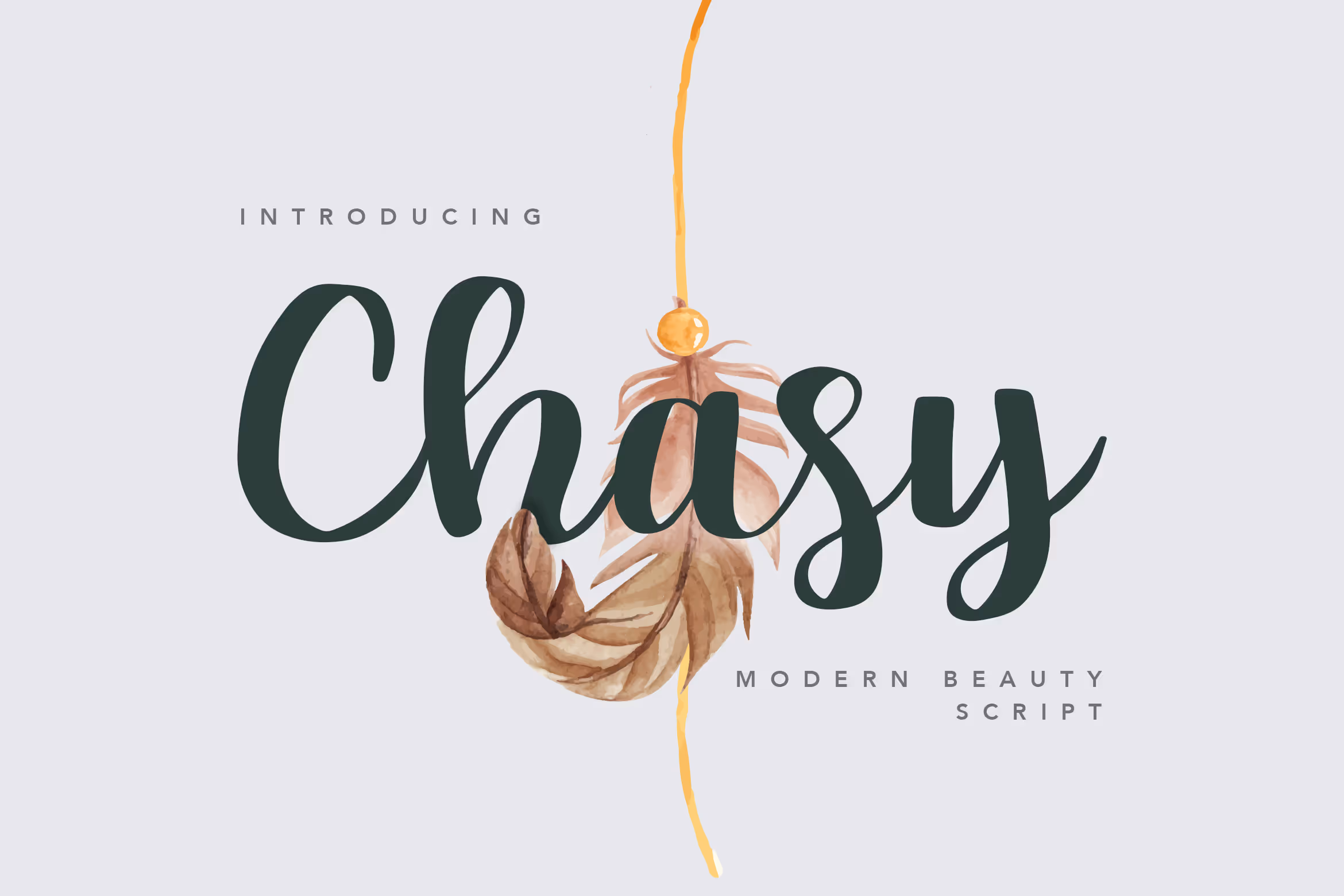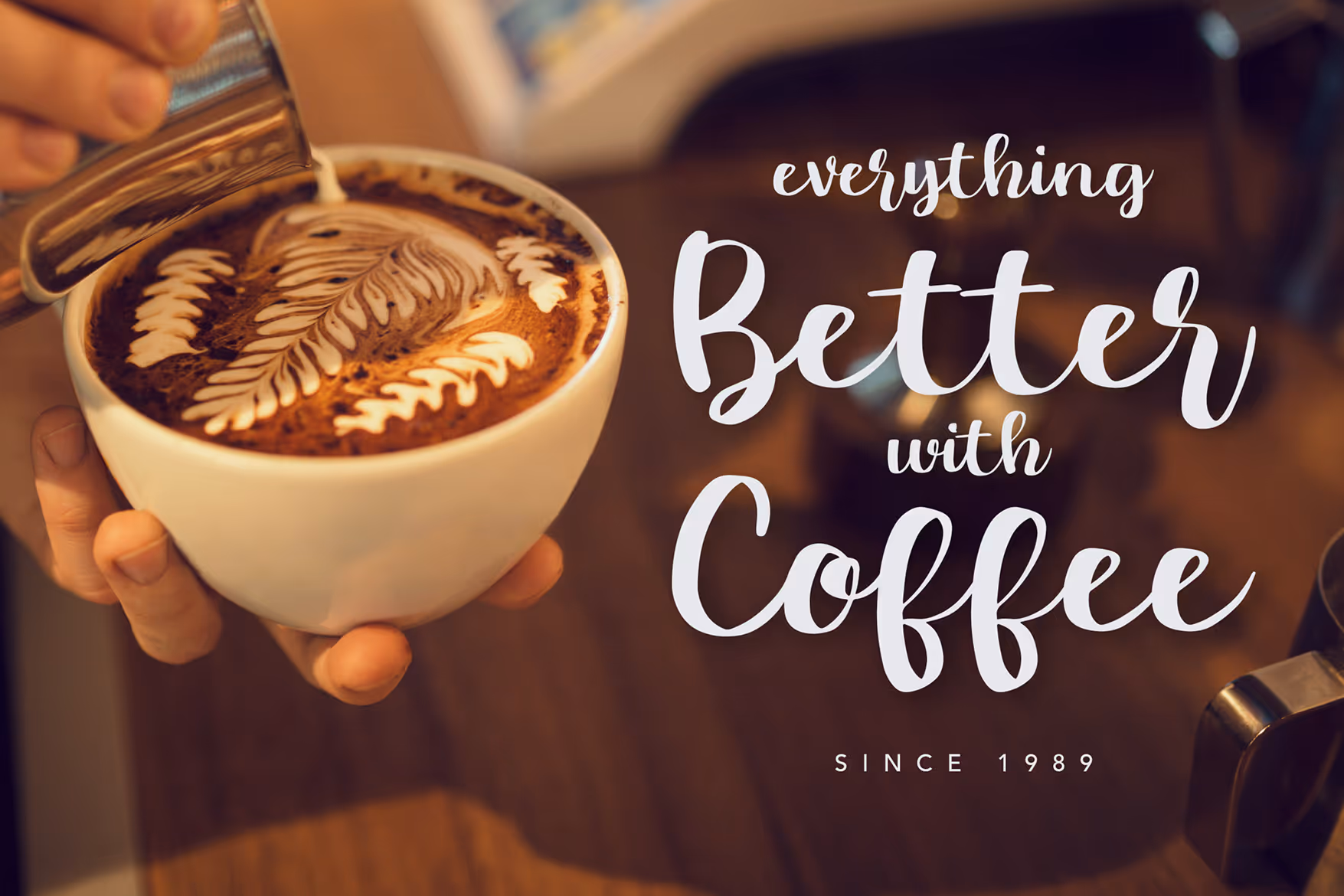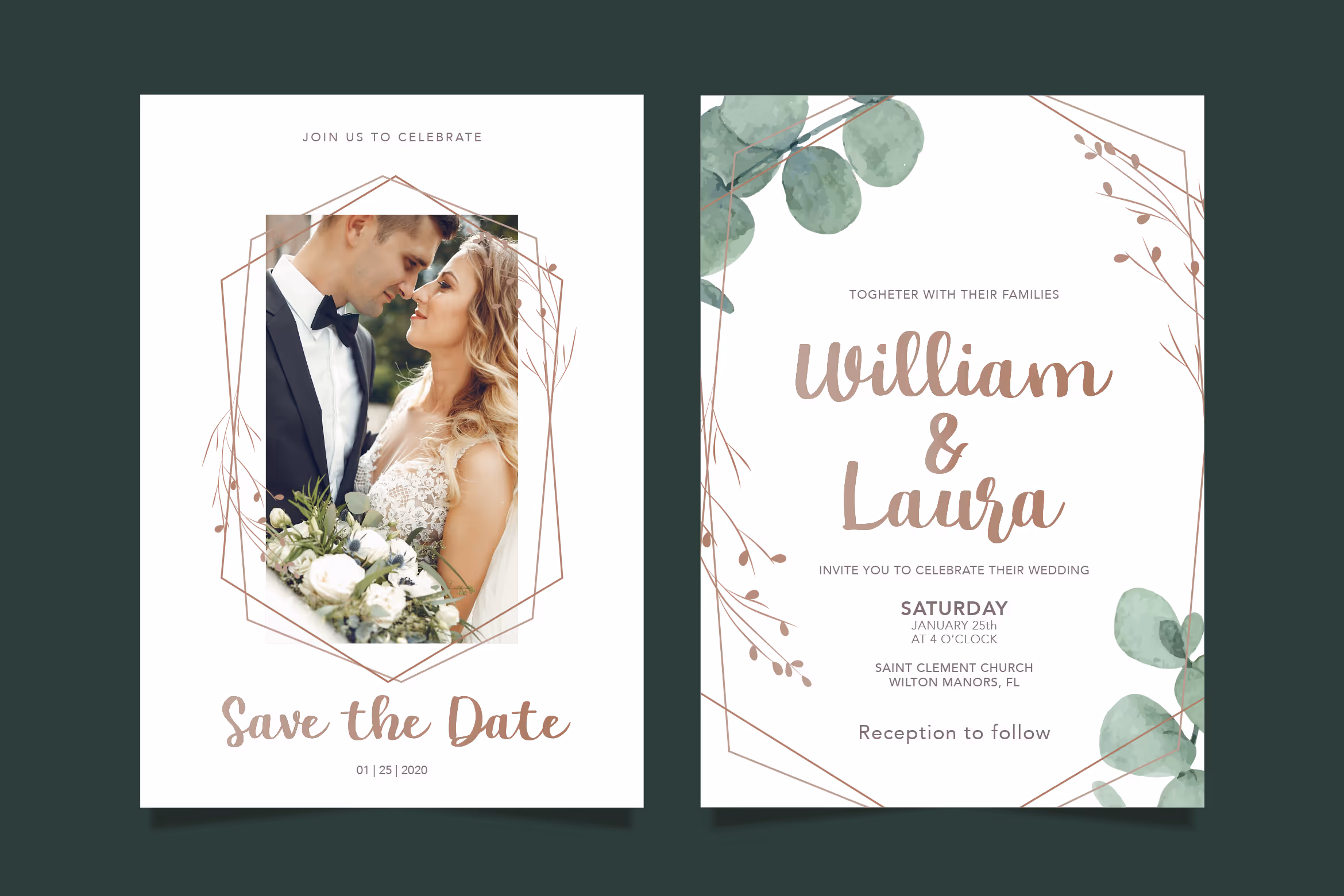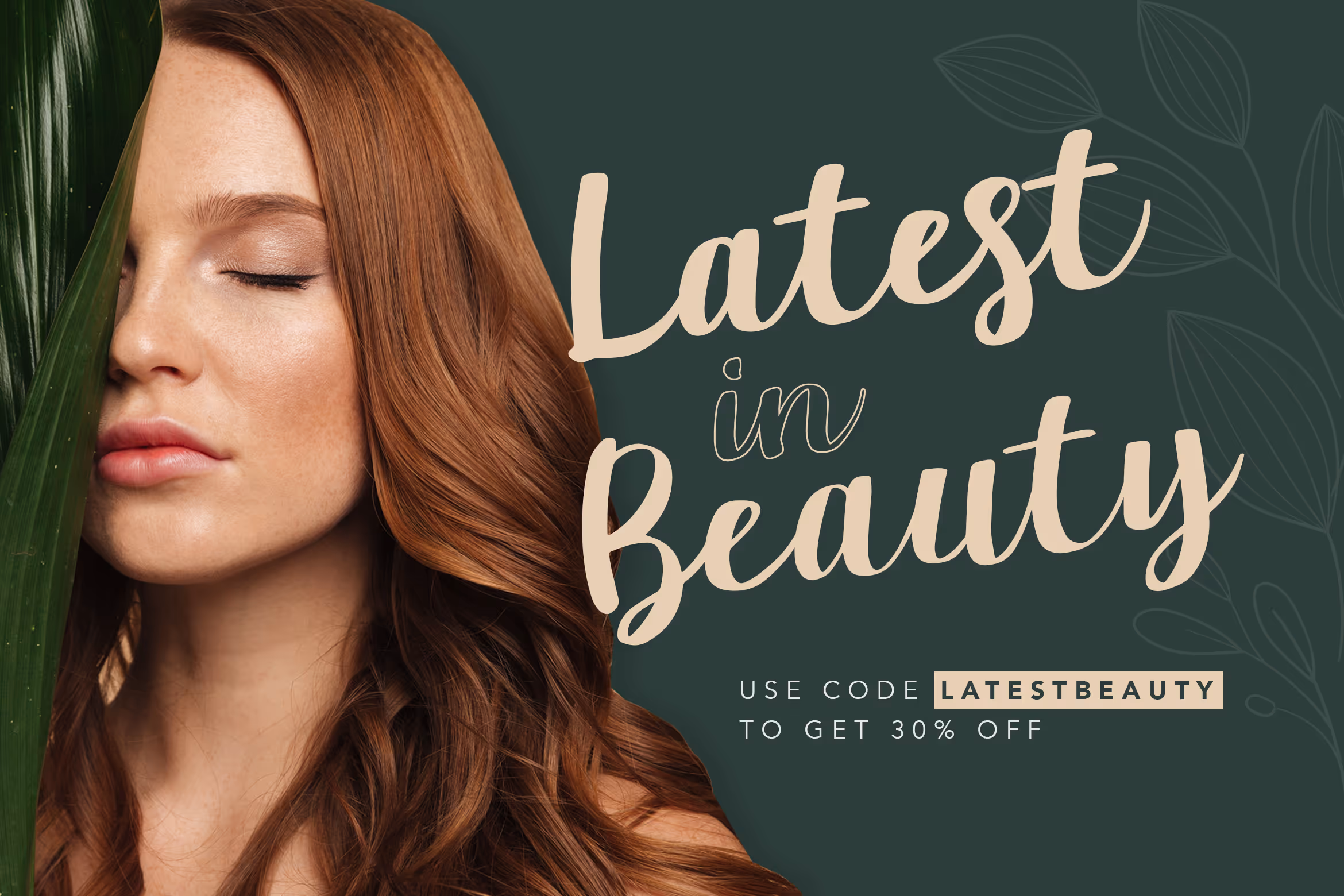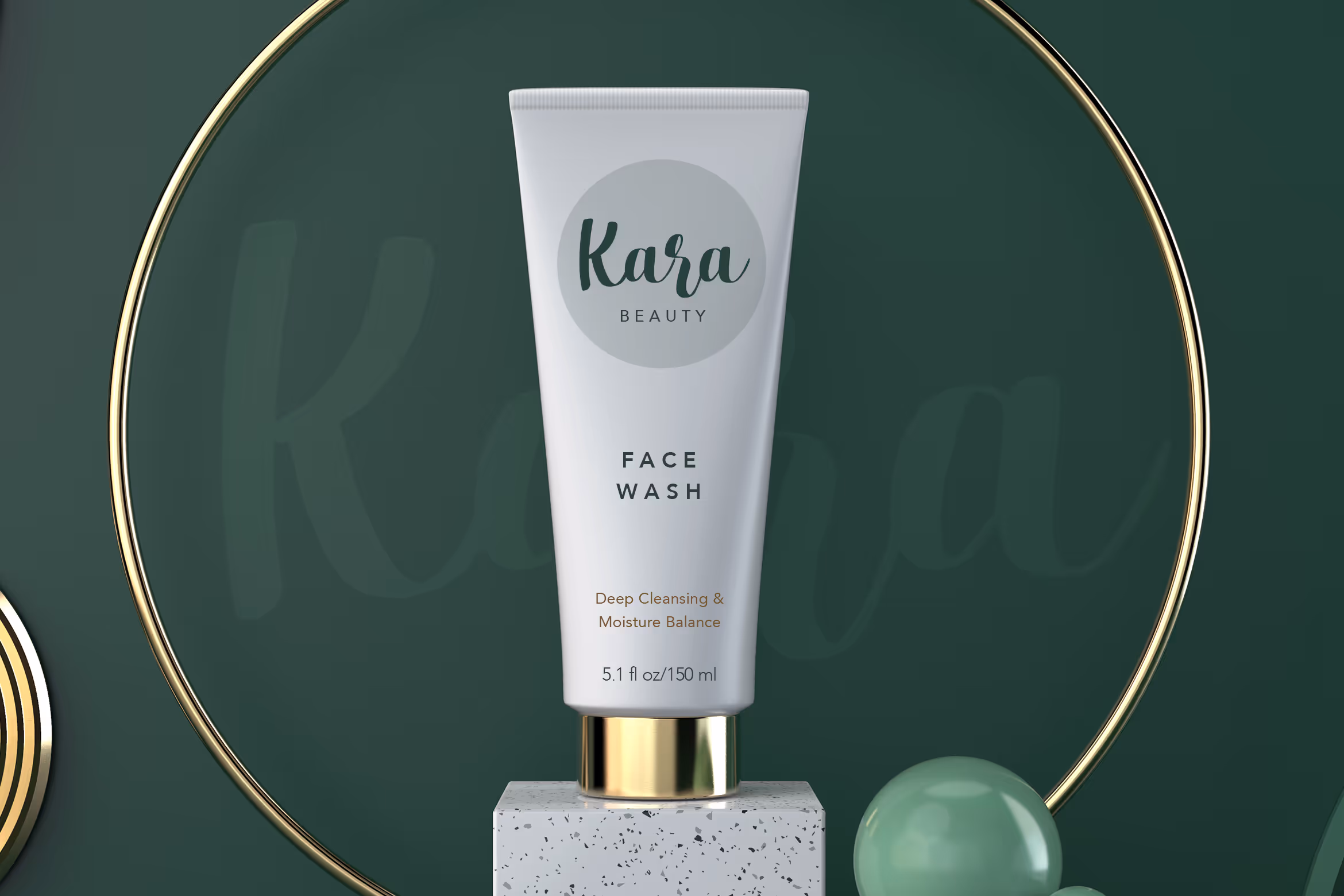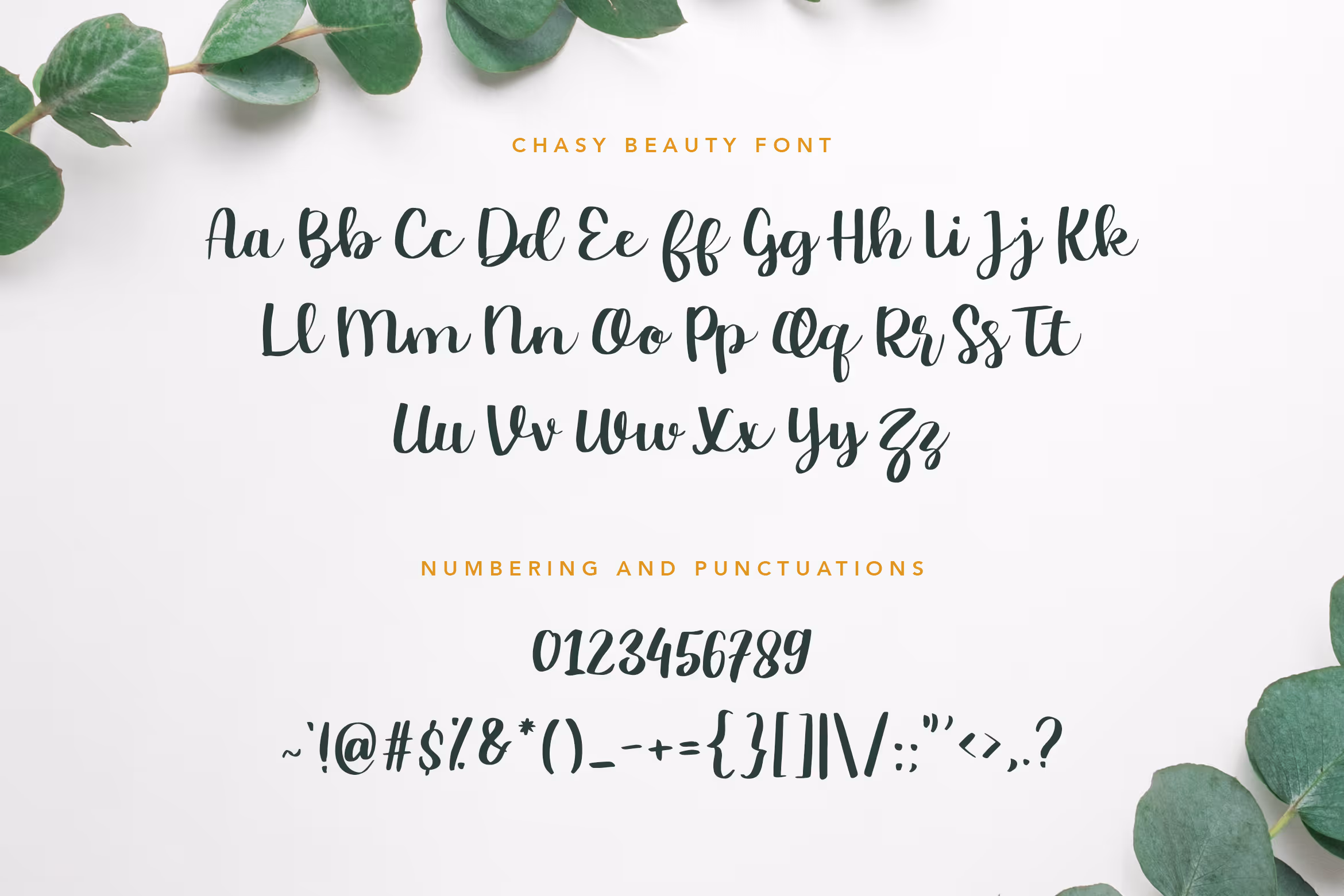
Chasy Beauty Script Font represent a stylish, modern and beautiful yet classic with an elegant feel. It’s perfect for any display project such as product name, logos, presentation, quoted text, coffee-themed and product packaging. With its beauty form and scribble, this font is suitable for fashion and beauty-themed or a stylish text overlay to any background image.